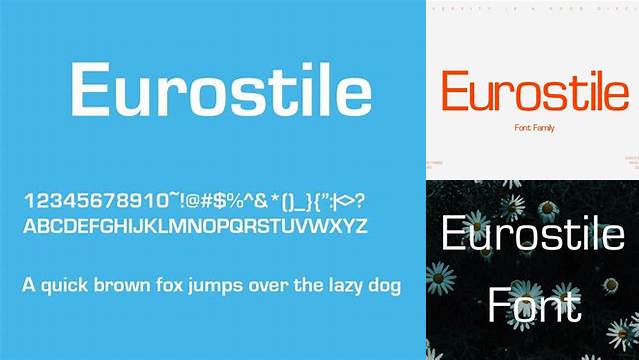
1. What is Eurostile Font?
Let's kick things off by understanding what makes Eurostile so special. Eurostile, a geometric sans-serif typeface, was designed by Aldo Novarese in 1962. Its distinctive rectangular shapes and rounded corners give it a futuristic and technical feel, making it a popular choice for logos, headlines, and display text. Think space age and cutting-edge – that's the vibe of Eurostile. Its strong, clean lines make it incredibly legible, even at small sizes, which is why you'll see it used everywhere from architectural renderings to product packaging. The Eurostile font has a timeless quality, still feeling fresh and modern decades after its creation. Its impact is undeniable, and its influence can be seen in many fonts that followed.
2. The History and Evolution of Eurostile
Delving into the history of Eurostile gives us a greater appreciation for its design. Aldo Novarese, a prolific Italian type designer, created it for the Nebiolo Foundry in Turin, Italy. The font was actually an extension of Novarese’s earlier typeface, Microgramma, which only existed in uppercase. Eurostile filled the gap by adding lowercase letters, expanding its versatility and making it a true workhorse font. The initial reception was overwhelmingly positive, and Eurostile quickly became a go-to choice for designers worldwide. Over the years, various weights and styles were added to the Eurostile family, further enhancing its adaptability. From its futuristic beginnings to its enduring popularity, the story of Eurostile is a testament to its timeless appeal and innovative design.
3. Key Characteristics of the Eurostile Font Family
What exactly makes Eurostile stand out from the crowd? It's all about the geometric forms and subtle details. The font’s defining features include its squared-off shapes, rounded corners, and almost monospaced appearance. This gives it a very consistent and uniform look, perfect for conveying a sense of technology and precision. The uppercase letters are particularly striking, with their bold, authoritative presence. The lowercase letters, while maintaining the geometric style, are designed for readability, ensuring that Eurostile works well in longer passages of text too. The various weights, from light to bold, offer even more flexibility, allowing designers to use Eurostile in a wide range of applications. Understanding these key characteristics helps you appreciate the design principles behind Eurostile and how they contribute to its unique aesthetic.
4. Eurostile vs. Microgramma: Understanding the Difference
You might hear the name Microgramma mentioned alongside Eurostile, so let's clear up the relationship between them. Microgramma, designed by Aldo Novarese and Alessandro Butti in 1952, is essentially the precursor to Eurostile. The key difference? Microgramma only included uppercase letters, limiting its usability for body text. Eurostile built upon Microgramma's geometric foundation by adding lowercase characters, making it a more complete and versatile typeface. While Microgramma retains a distinct retro-futuristic charm, Eurostile's inclusion of lowercase letters cemented its place as a modern classic. Think of Microgramma as the stylish ancestor, and Eurostile as the fully realized descendant. Knowing this distinction helps you choose the right font for your project, depending on the specific needs and aesthetic you’re aiming for.
5. Popular Uses of Eurostile in Design
Eurostile has made its mark in numerous design applications, proving its versatility and timeless appeal. You'll often see it used in logos, particularly for brands that want to project a modern, technological image. Think sleek and sophisticated! It's also a popular choice for headlines and display text, where its bold presence can grab attention. Architectural renderings and signage often feature Eurostile due to its clear legibility and contemporary feel. Even in the realm of science fiction, Eurostile has found a home, appearing in films and video games to convey a futuristic aesthetic. From product packaging to website design, Eurostile continues to be a favored font for designers seeking a clean, geometric, and impactful typeface.
7. Eurostile Alternatives: Exploring Similar Fonts
If you’re looking for the Eurostile aesthetic but want a free or open-source option, you're in luck! There are several excellent alternatives that capture a similar geometric sans-serif vibe. One popular choice is Rajdhani, a Google Font that offers a modern and clean look, close to Eurostile. Another is Quantico, which boasts a slightly more condensed design, making it perfect for headlines and logos. Bebas Neue is another free option that has a similar tall and narrow structure, ideal for adding a touch of modernism to your designs. Exploring these alternatives allows you to achieve the Eurostile feel without the cost, giving you flexibility and options in your font selection. Plus, trying out different fonts can often lead to unexpected and delightful discoveries!
8. Eurostile Web Font: Using Eurostile Online
Using Eurostile on your website can instantly elevate its design and give it a modern, tech-forward feel. However, since Eurostile is a commercial font, you'll need to have the appropriate license to use it as a web font. Services like MyFonts offer web font licenses for Eurostile, allowing you to embed it directly into your website using CSS. If you're seeking a free alternative, Google Fonts provides a wide range of fonts that are similar to Eurostile, such as Rajdhani and Quantico, which can be easily integrated into your website. Using web fonts ensures that your website's typography remains consistent across different browsers and devices, providing a polished and professional user experience. So, whether you opt for Eurostile itself or a similar font, web fonts are the way to go for online typography.
9. Pairing Eurostile with Other Fonts: Best Combinations
Eurostile is a strong and distinctive font, so pairing it wisely with other typefaces is crucial for a harmonious design. Generally, it works well with fonts that offer a contrast, either in style or weight. Pairing Eurostile with a simple serif font like Merriweather can create a sophisticated balance, blending the modern with the traditional. Alternatively, combining Eurostile with a more rounded sans-serif like Open Sans can soften its geometric edges, resulting in a friendly yet professional look. Avoid pairing Eurostile with overly similar fonts, as this can lead to visual monotony. Experiment with different combinations to find what best suits your project’s needs and aesthetic. The right font pairing can significantly enhance your design's overall impact and readability.
30. The Future of Eurostile: Enduring Popularity
Eurostile's enduring popularity suggests a bright future for this classic typeface. Despite being designed in 1962, it continues to be a favorite among designers for its modern and versatile aesthetic. Its geometric shapes and clean lines remain relevant in today's design landscape. As technology and design trends evolve, Eurostile's adaptable nature ensures it will continue to be used in various applications, from branding and web design to motion graphics and gaming. The font's timeless appeal and strong presence make it a reliable choice for projects that need to convey a sense of innovation and sophistication. Eurostile's legacy as a design staple is set to continue, cementing its place as a modern classic. So, keep exploring its potential, guys!